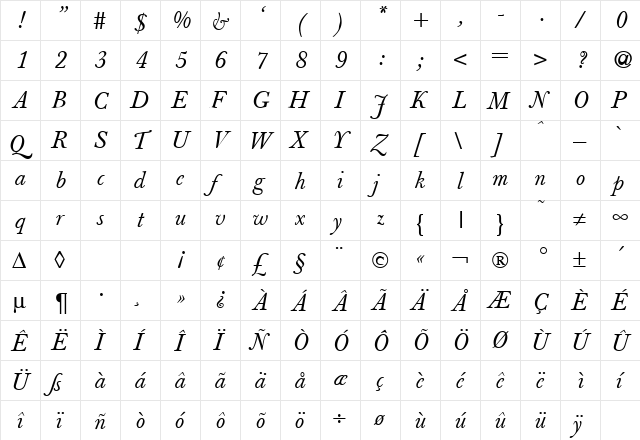
BaskervilleBook RegularItalic
Design Context for BaskervilleBook Typeface
BaskervilleBook takes a measured approach to typography — its balanced proportions and neutral character make it a reliable workhorse for both digital and print work. The dynamic lean of this cut emphasises speed and emphasis in any layout.